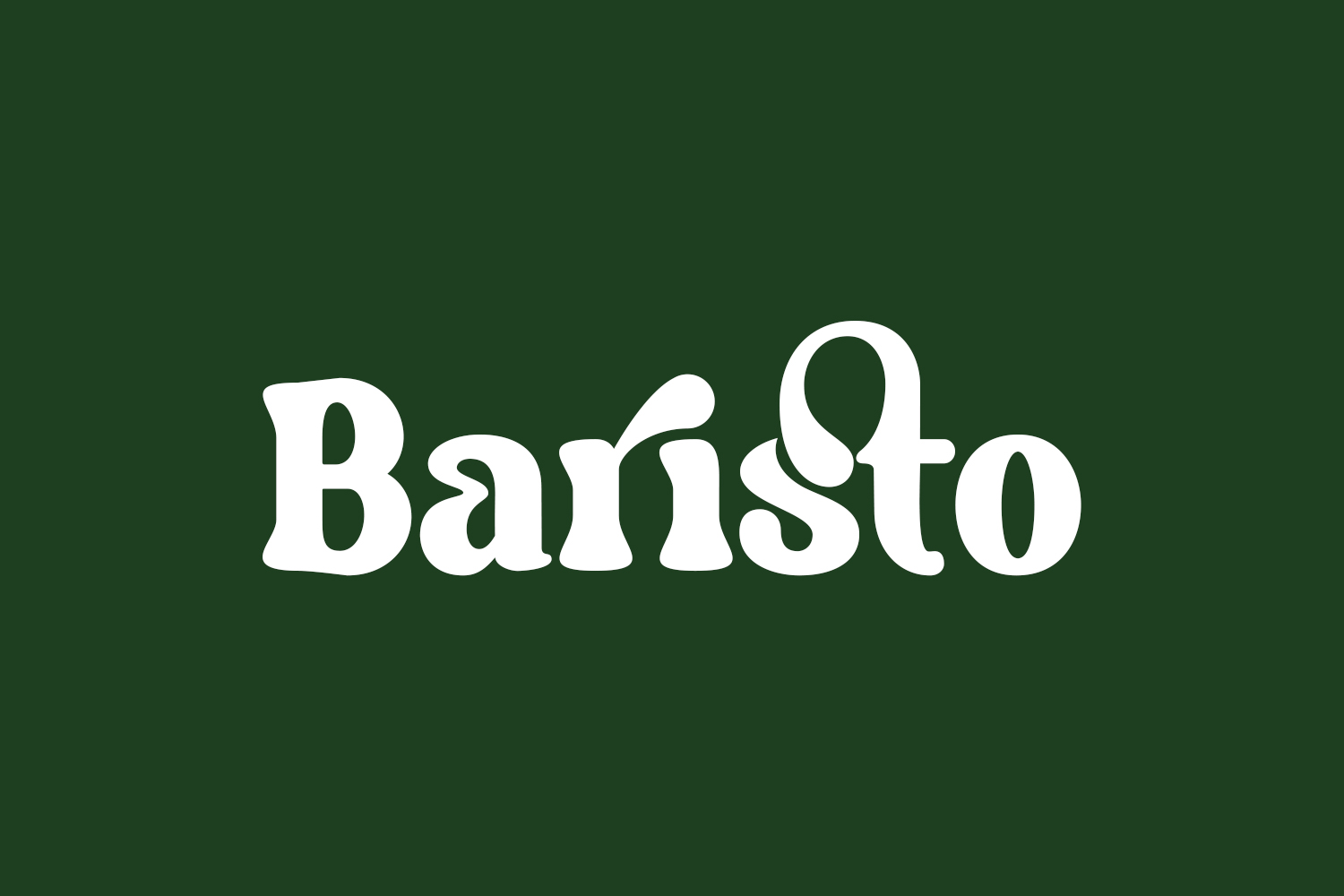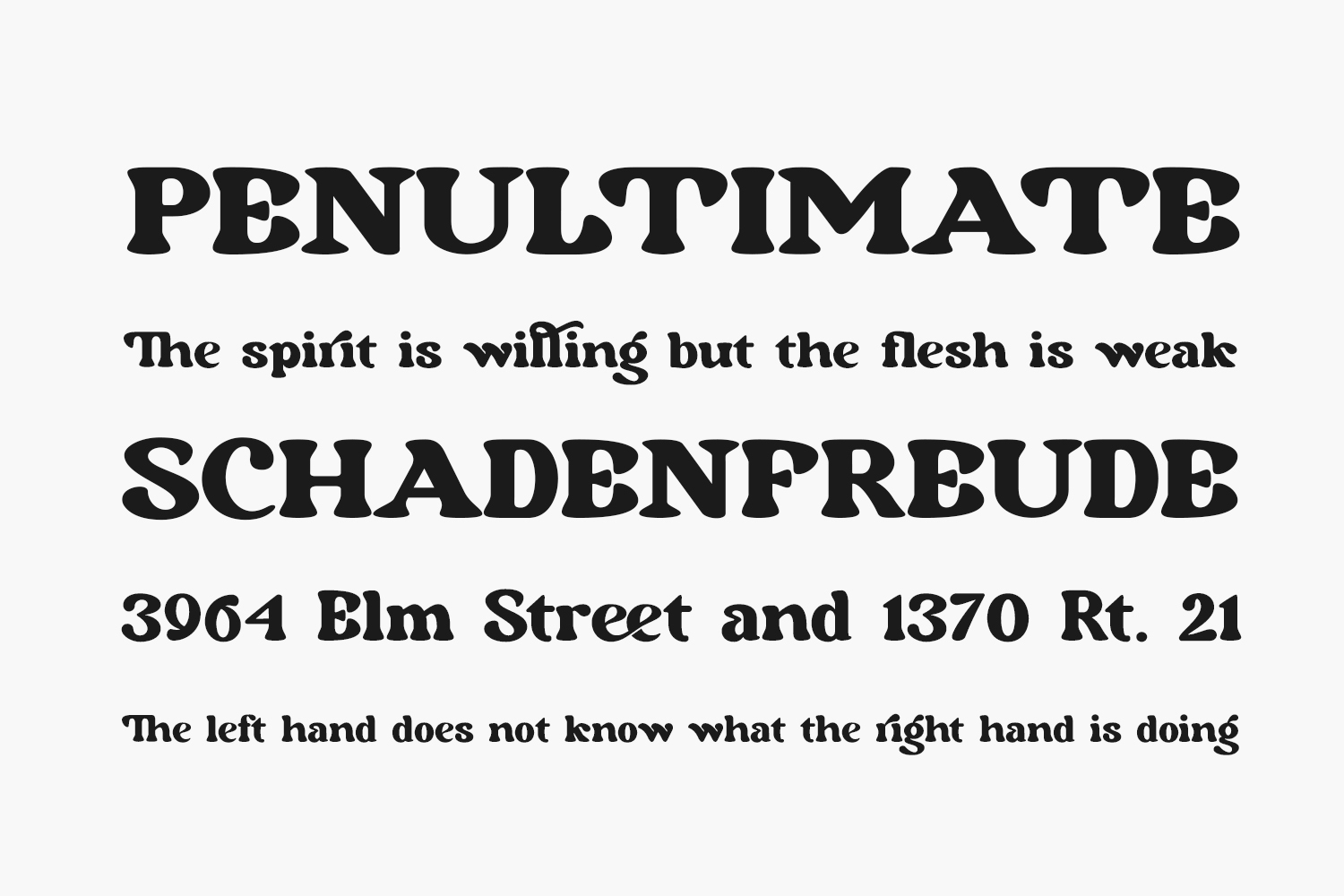
Baristo Free Font is a magic modern vintage font that will transform beautiful alternative styles and binders, also designed to fill text gaps between lines of serif text. Baristo Free Font is free for personal use only. Please purchase the full version for commercial use.
Designed by ToniStudio